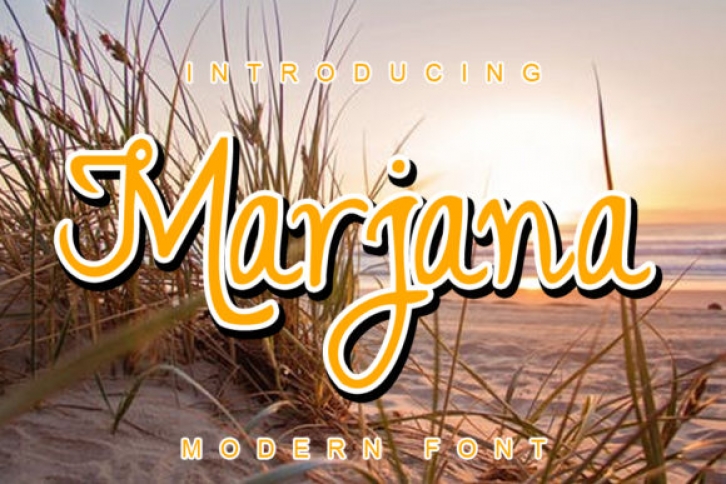
Marjana is a simple and delicate script font. It looks beautiful on a variety of designs requiring a personalized style, such as wedding invitations, thank you cards, weddings, greeting cards, logos and so on.